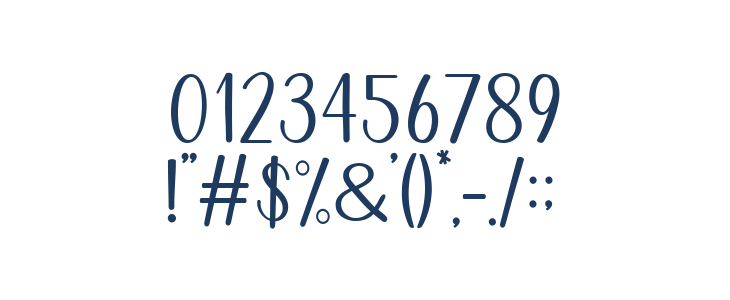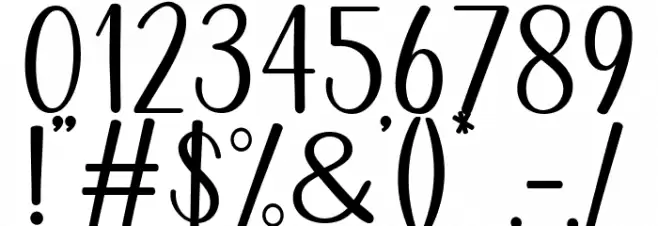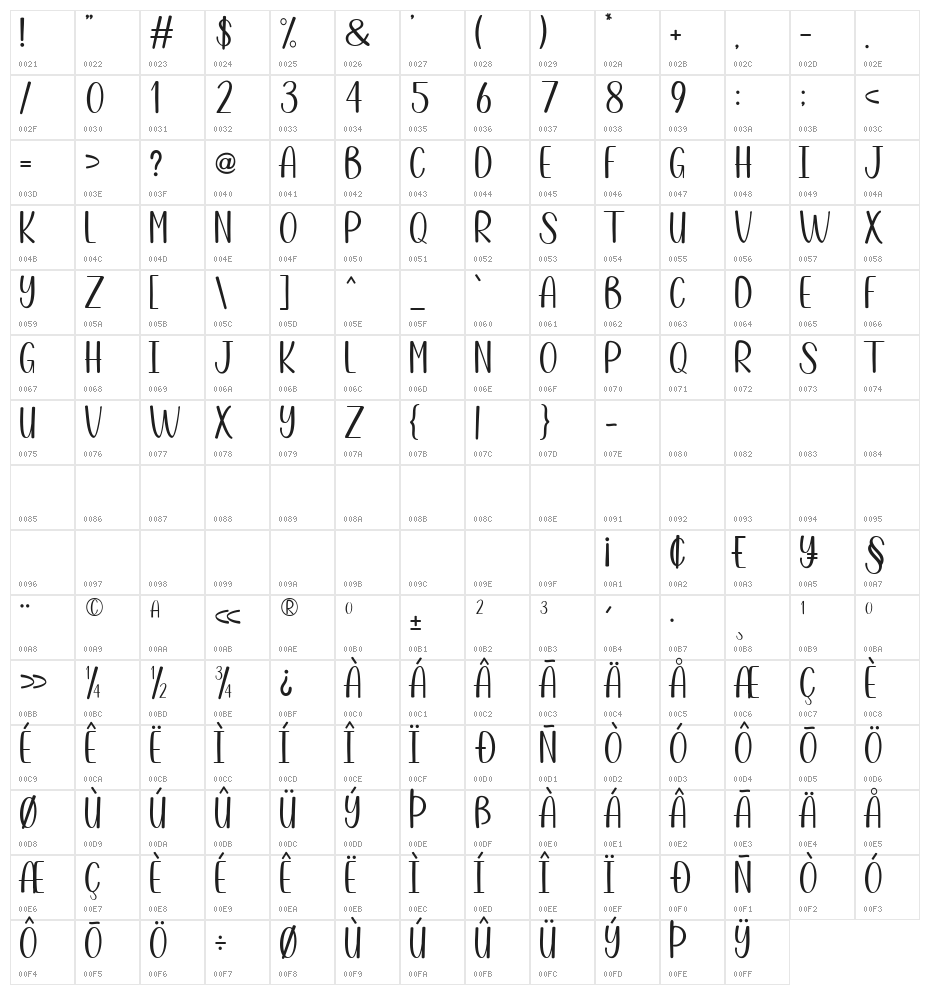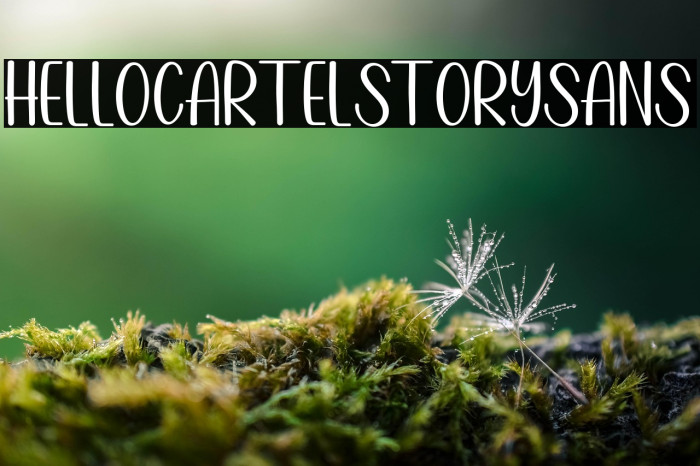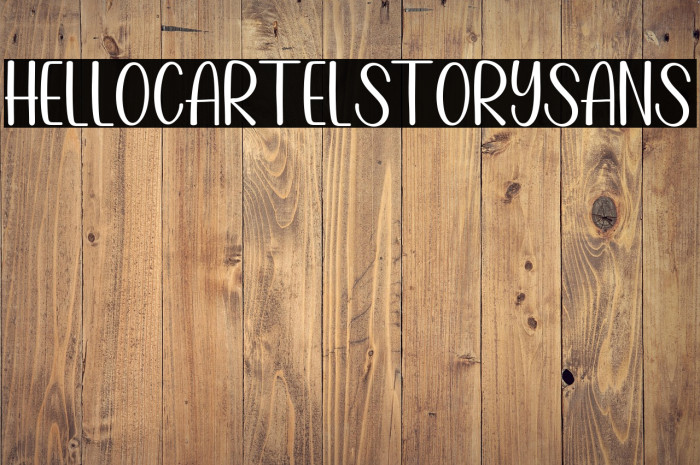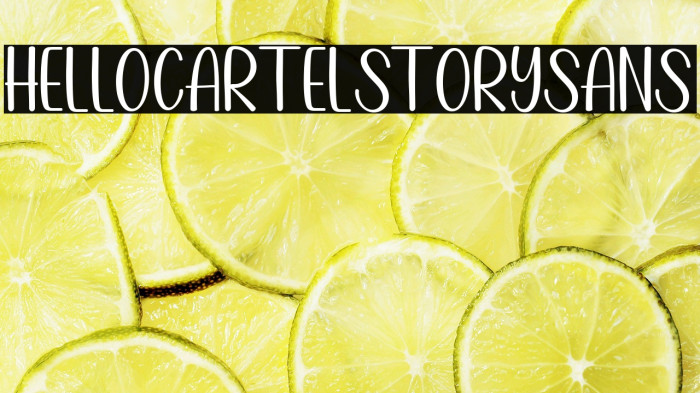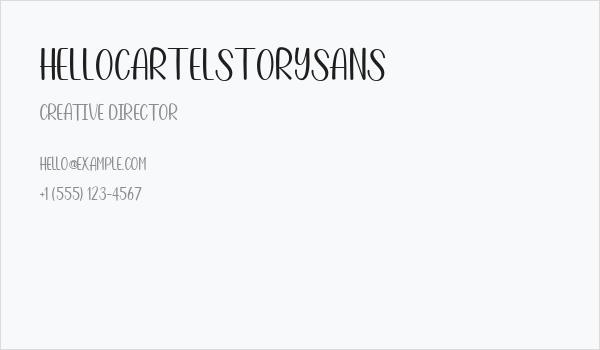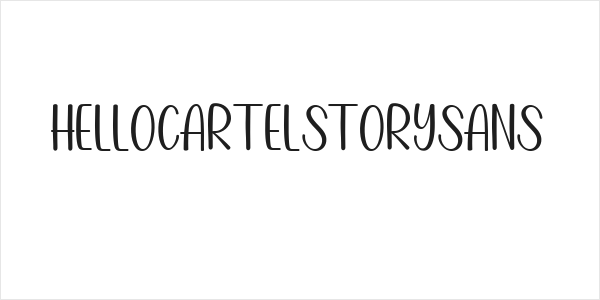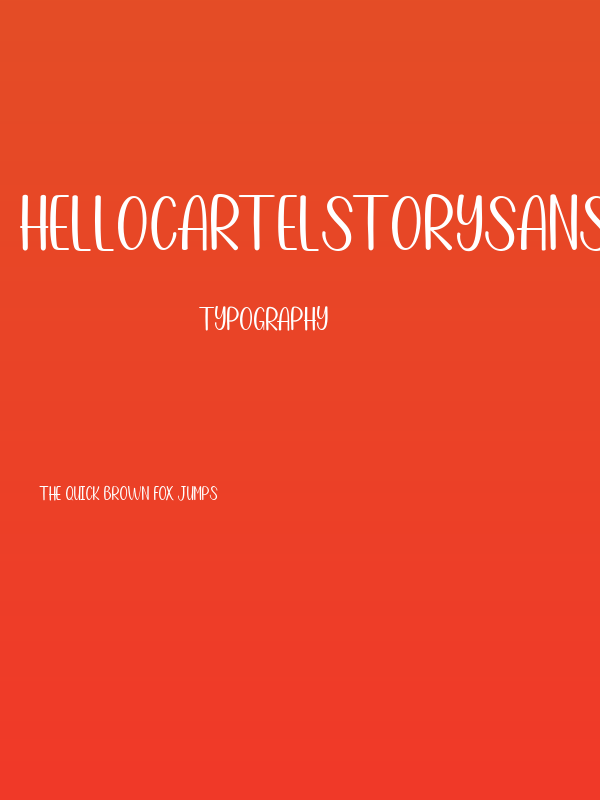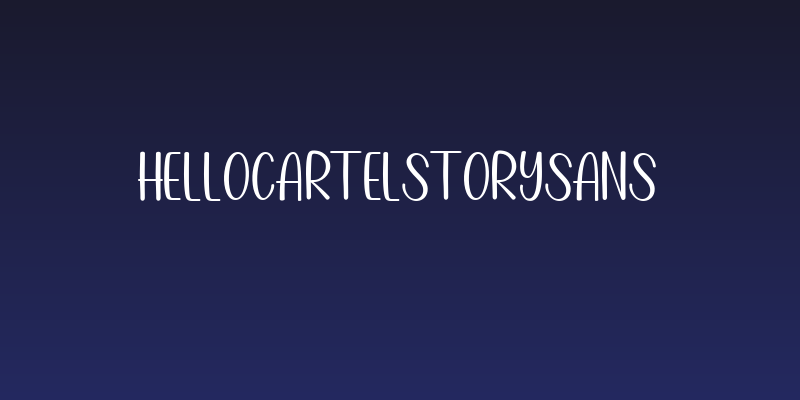
HelloCartelStorySans Font
HelloCartelStorySans Description
This font features a playful and casual handwritten style, characterized by its tall, narrow letters with a slight slant. The strokes are smooth and consistent, giving it a friendly and approachable appearance. The uppercase and lowercase letters maintain a uniform height, enhancing readability. The numerals are rounded and align well with the overall style, while the special characters add a whimsical touch. This font's clean lines and balanced spacing make it versatile for various design applications, from informal invitations to creative branding projects.
| Proposed Projects | Ideal for greeting cards, playful branding, children's books, and casual invitations. |